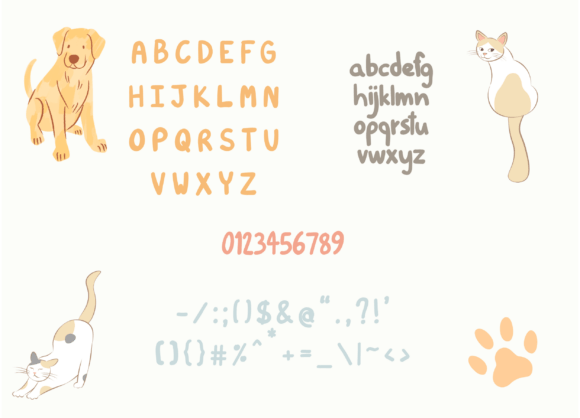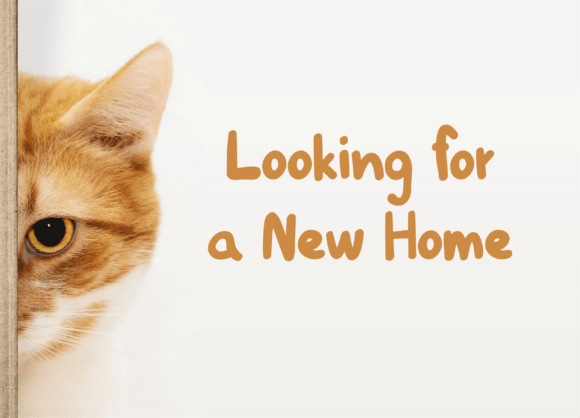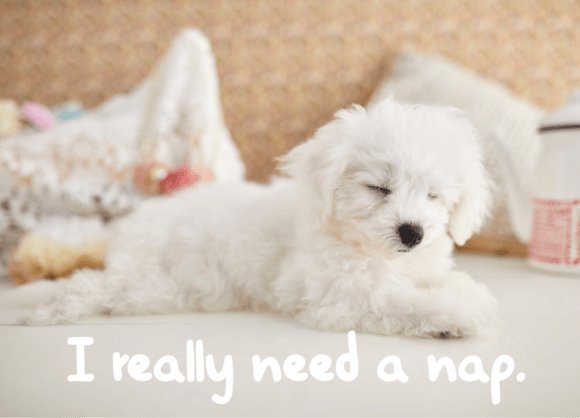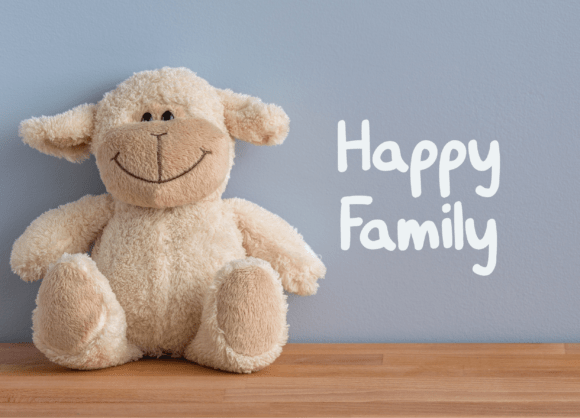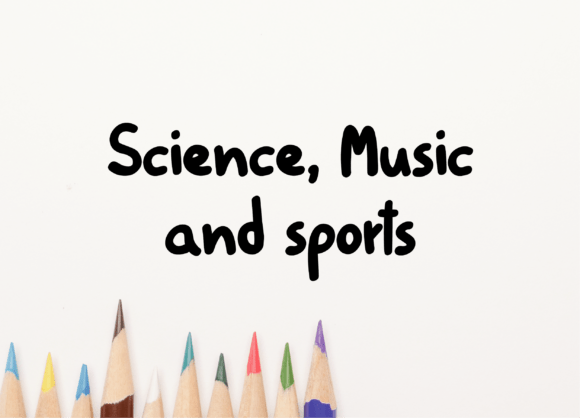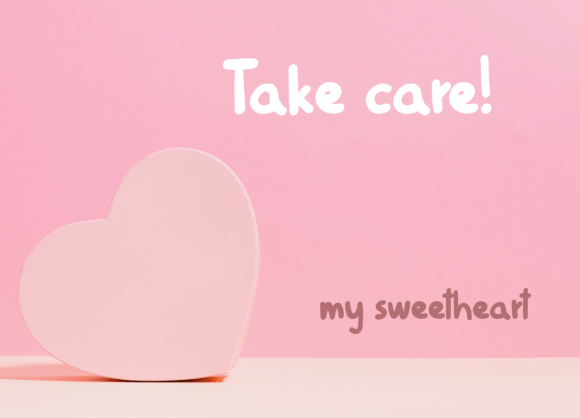
Unleash the Cutest Fonts Ever: Introducing Cats and Dogs Handwritten Font
Who hasn’t had a moment where they were rummaging through their grandma’s attic, stumbling upon an old trunk filled with dusty, yet precious, family heirlooms? For designers, it’s that moment when you come across a quirky, handwritten font that instantly sparks creativity. Imagine the thrill of discovering a font that captures the essence of childhood, playfulness, and warmth – all in one elegant script.
Meet the Cats and Dogs Handwritten Font, a delightful representation of the adorable world of pets. This charming font is perfect for adding a touch of whimsy to any project, whether it’s a school assignment, a home decor project, or a classroom design. For designers, it’s a valuable asset that offers a unique blend of artistry, joy, and functionality – making it a must-have in their font collection.
Cats and Dogs Handwritten Font Key Features
- Font Style: Handwritten, Casual, and Whimsical – This font is perfect for creating a playful and friendly atmosphere in designs.
- Font Size: 1,024 glyphs – Providing a comprehensive set of characters, including uppercase and lowercase letters, numbers, and punctuation.
- Unique Characteristics: Irregular letterforms, varying line widths, and subtle imperfections – Giving your designs a unique, hand-drawn feel.
Cats and Dogs Handwritten Font Review
Overall, I think the “Cats and Dogs Handwritten Font” is a unique and charming addition to any design project. Here are some things that work well:
- ✨ Whimsical feel: The font’s playful, handwritten style adds a touch of personality to any text.
- ✨ Versatility: It works well for headings, titles, and even body text in certain contexts.
- ✨ Easy to read: Despite its handwritten appearance, the font is surprisingly legible, especially at larger sizes.
- ⚠️ Limited legibility at small sizes: The font can become difficult to read when used in small text sizes or in dense blocks of text.
- ⚠️ Not ideal for body text: While it works well for headings, the font’s uniqueness can be overwhelming when used for extended passages of text.
Overall, I think the “Cats and Dogs Handwritten Font” is a great choice for designers who want to add a touch of whimsy to their projects. Just be mindful of its limitations, and use it thoughtfully to get the best results.
The Cats and Dogs Handwritten Font is perfect for creating:
– Whimsical children’s book illustrations
– Handwritten-style greeting cards and invitations
– Custom watermarks and logos
– Unique and creative social media graphics
The recommended font size for optimal readability with the Cats and Dogs Handwritten Font is between 12pt and 24pt. This font is designed to be highly legible at a wide range of sizes, making it suitable for a variety of design applications.
Q: Can I customize the Cats and Dogs Handwritten Font to create a custom version?